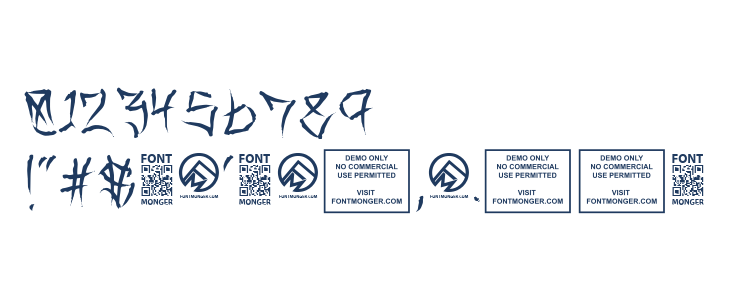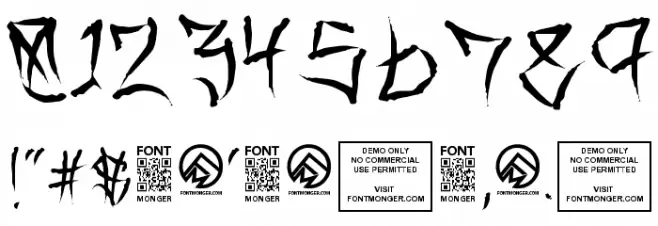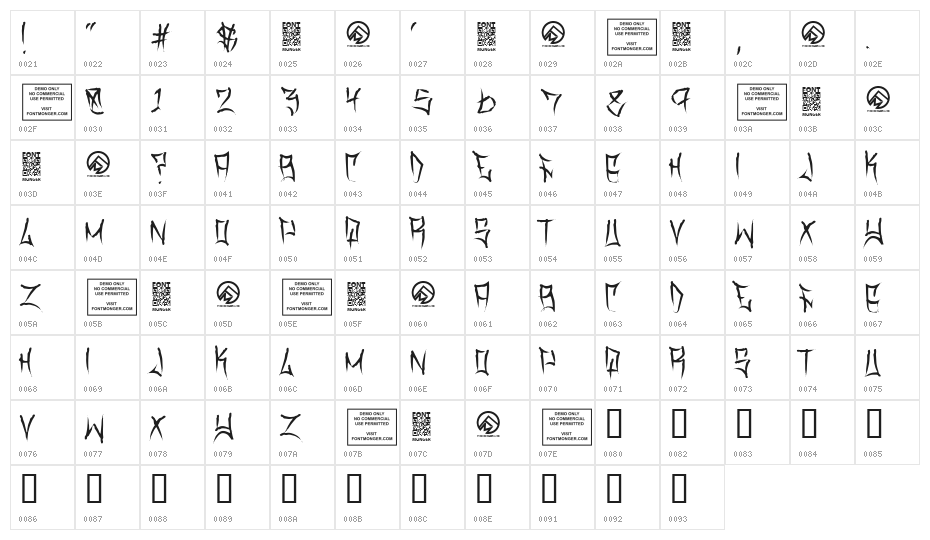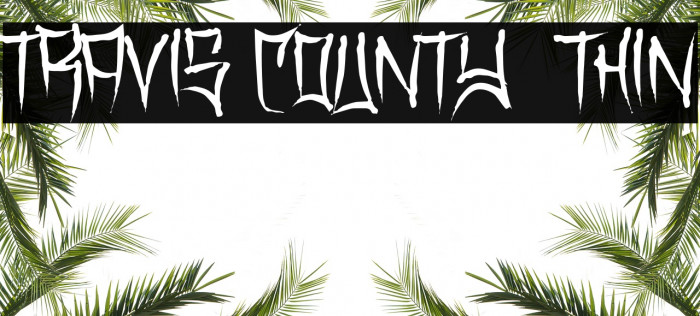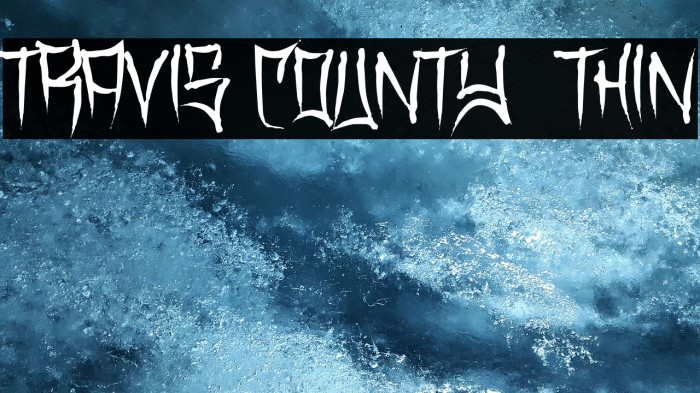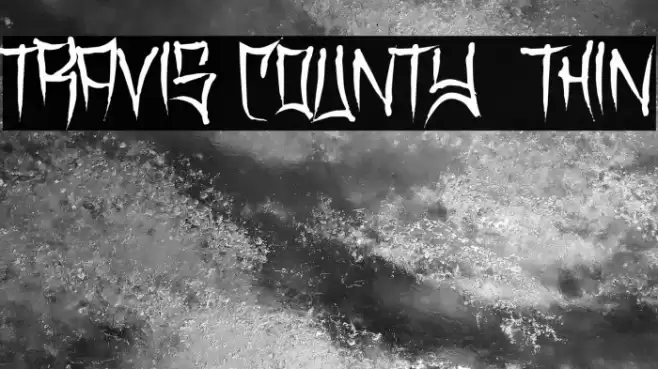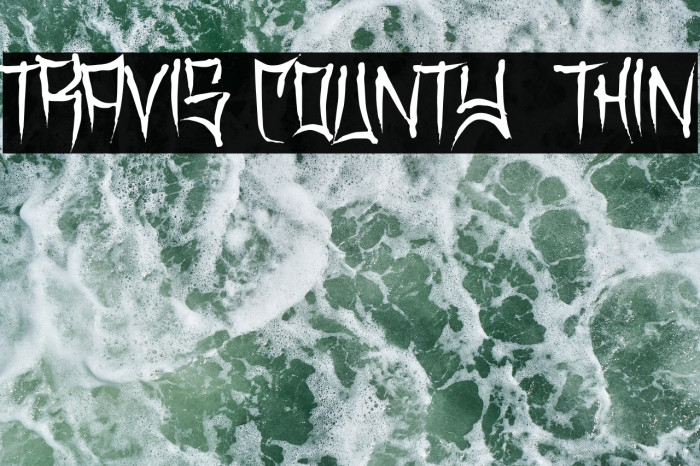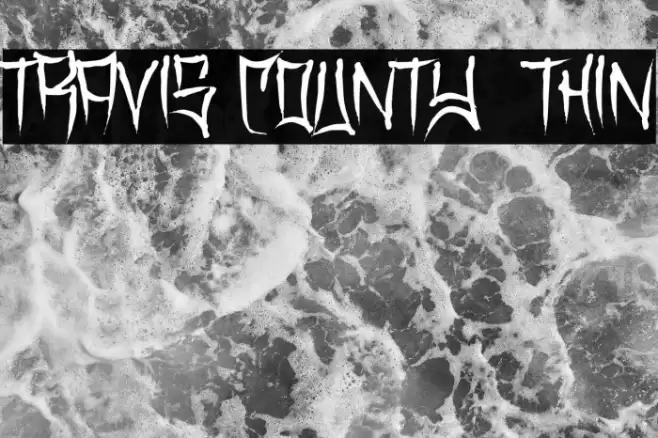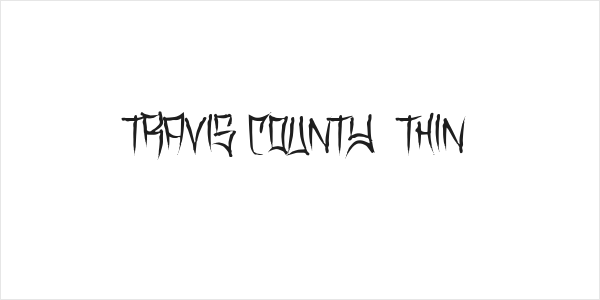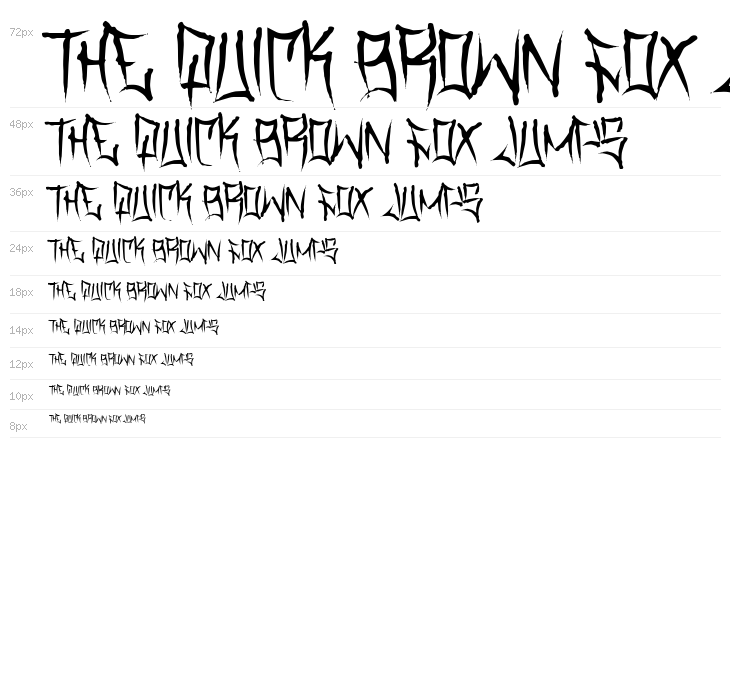
Travis County Thin Font
Travis County Thin Description
This font features a striking, edgy design with sharp, angular lines and a hand-drawn aesthetic. The characters have a unique, jagged appearance, reminiscent of graffiti or street art, giving it a rebellious and bold look. The uppercase and lowercase letters maintain a consistent style, with exaggerated serifs and pointed edges that create a sense of movement and energy. The numbers and special characters follow the same design principles, ensuring a cohesive overall appearance. This font is ideal for projects that require a strong visual impact and a touch of urban flair.
| Overall Style | Modern, Urban |
| Proposed Projects | Perfect for album covers, streetwear branding, event posters, and urban-themed designs. |